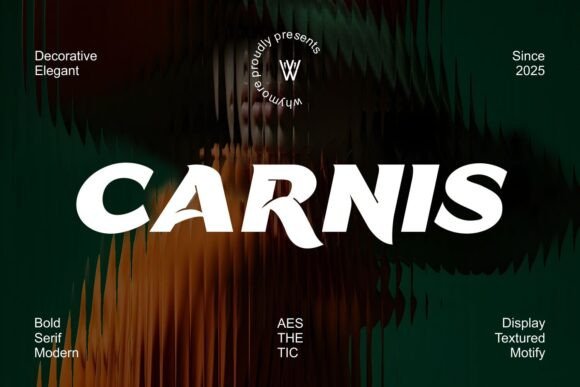
Introducing CARNIS: The Bold and Decorative Sans Serif Font for Impactful Designs
In the world of graphic design, a font can make or break the visual identity of a brand. With so many options available, it’s essential to choose a typeface that not only stands out but also communicates the message effectively. This is where CARNIS comes in – a bold and decorative sans serif font designed to command attention in any visual setting. In this article, we’ll explore the features, benefits, and uses of CARNIS, and why it’s becoming the go-to font for designers and brands alike.
A Modern, Assertive, and Aesthetic Design
CARNIS is a masterfully crafted font that blends geometric structure and powerful letterforms, making it perfect for professional branding, iconic logos, standout posters, and eye-catching social media content. Its modern, assertive, and aesthetic design ensures that your message is conveyed with confidence and style. Whether you’re a graphic designer, creative agency, content creator, or visionary brand, CARNIS is the ideal choice for those who want to make a lasting impression.
Why Choose CARNIS?
So, what sets CARNIS apart from other fonts? Here are some compelling reasons to choose CARNIS for your next design project:
- Branding that Stands Out: CARNIS is perfect for logos, headlines, posters, and design projects that need a bold voice. Its unique design ensures that your brand gets noticed and remembered.
- Full of Character: CARNIS boasts a unique blend of bold sans serif style with subtle Y2K and grunge aesthetics, making it a versatile font for a wide range of design applications.
Versatility Across Design Applications
CARNIS is not just limited to digital use; it’s also ideal for print media such as:
- Packaging: Make your product stand out on store shelves with CARNIS.
- Signage: Create eye-catching signs that grab attention.
- Editorial Layouts: Add a touch of elegance and sophistication to your publications.
- Stationery Mockups: Elevate your brand’s stationery with CARNIS.
Perfect for Designers and Brands
CARNIS is a go-to font for graphic designers, creative agencies, content creators, and visionary brands aiming to stand out in a competitive market. Its elegant yet impactful design ensures that your brand’s message is conveyed with confidence and style.
Tips for Using CARNIS Effectively
To get the most out of CARNIS, here are some tips for using it effectively:
- Use it as a Headline Font: CARNIS is perfect for headlines, titles, and captions.
- Experiment with Colors: Try out different colors to find the perfect match for your brand.
- Mix and Match: Combine CARNIS with other fonts to create a unique visual identity.
In conclusion, CARNIS is a bold and decorative sans serif font that’s perfect for designers and brands looking to make a lasting impression. Its modern, assertive, and aesthetic design, combined with its versatility across design applications, makes it a valuable addition to any design project. Whether you’re a seasoned designer or just starting out, CARNIS is definitely worth checking out.